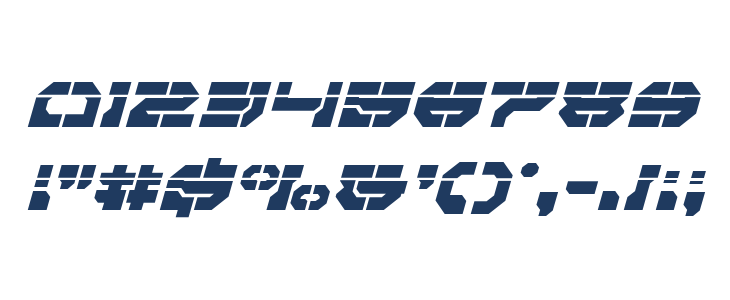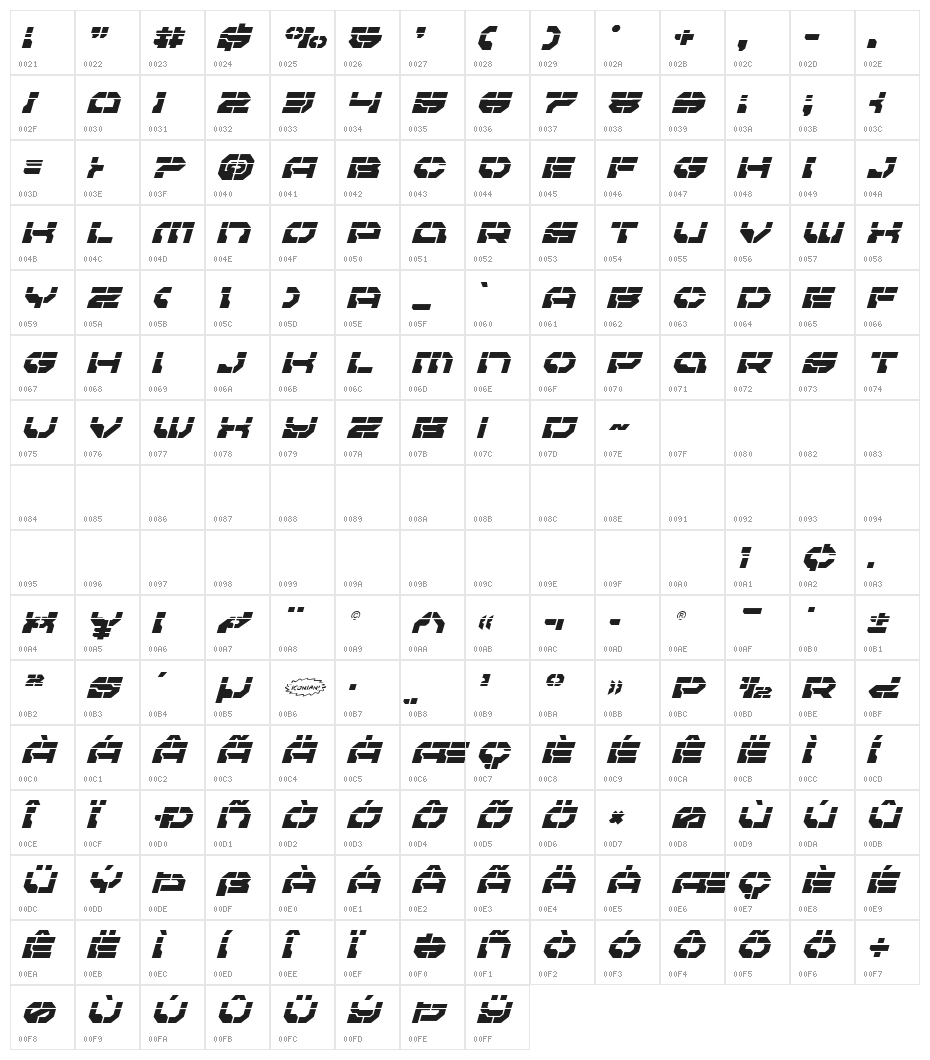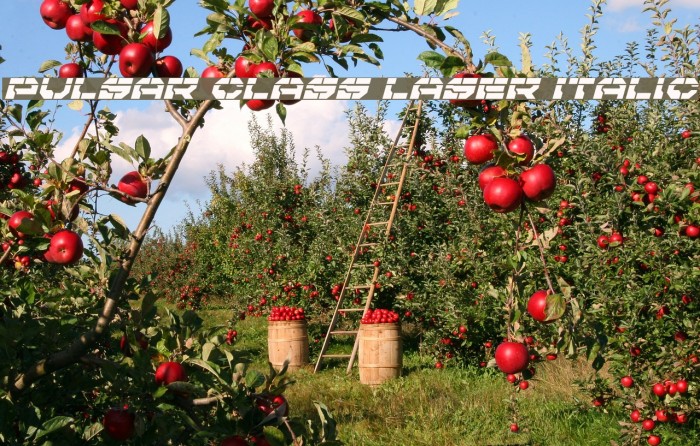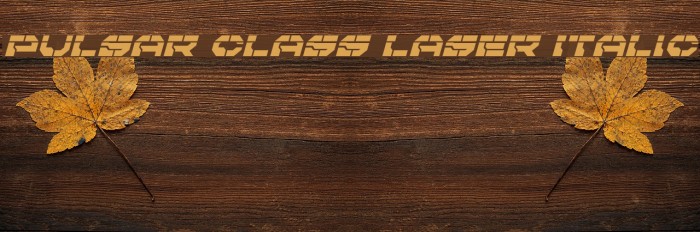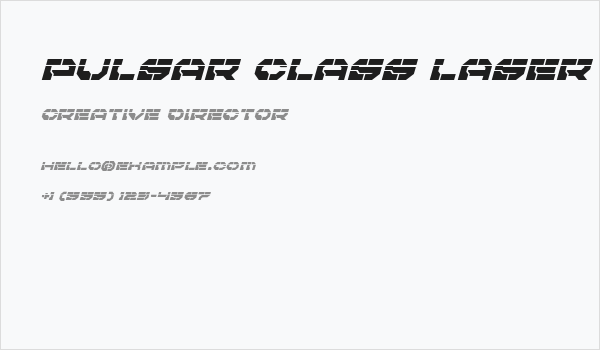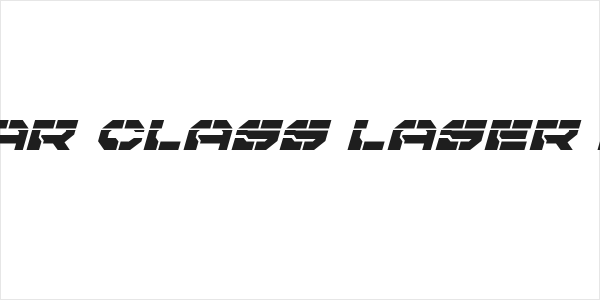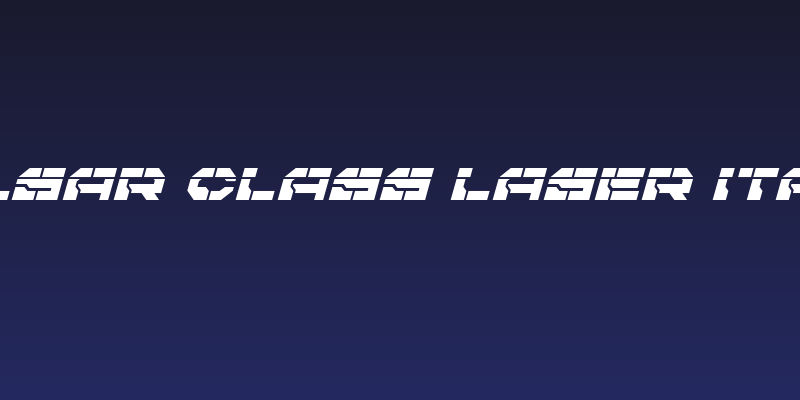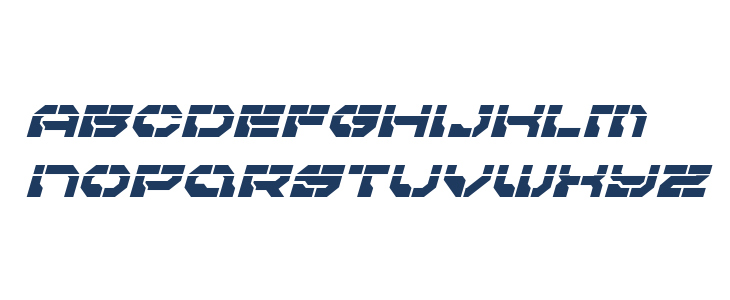
Pulsar Class Laser Italic Font
Pulsar Class Laser Italic Description
This font features a futuristic and angular design, characterized by sharp edges and geometric shapes. The letters are bold and italicized, giving them a dynamic and forward-leaning appearance. The style is reminiscent of science fiction and technology themes, with a distinct stencil-like quality that adds to its modern aesthetic. The characters are uniformly spaced, maintaining a consistent and cohesive look across the alphabet. The numbers and special characters follow the same design principles, ensuring a harmonious overall appearance.
| Proposed Projects | Ideal for sci-fi themed projects, tech branding, video game titles, and futuristic posters. |